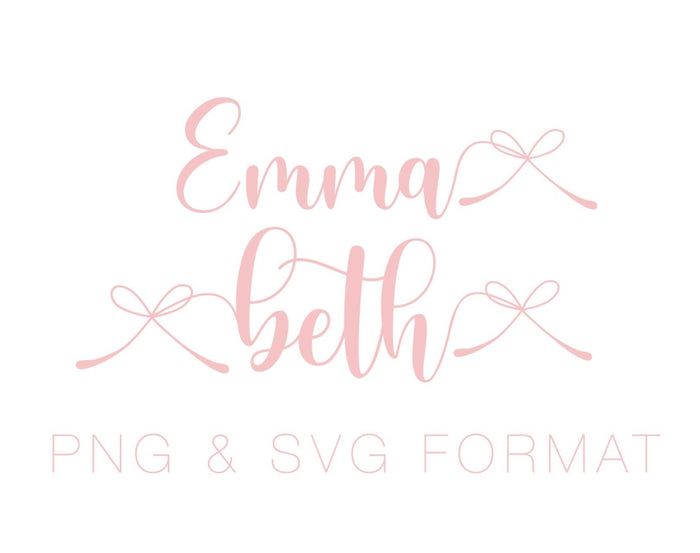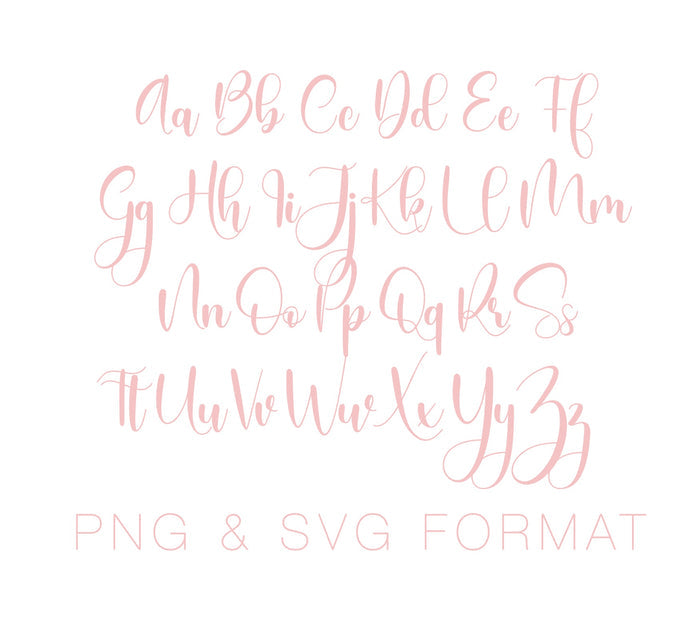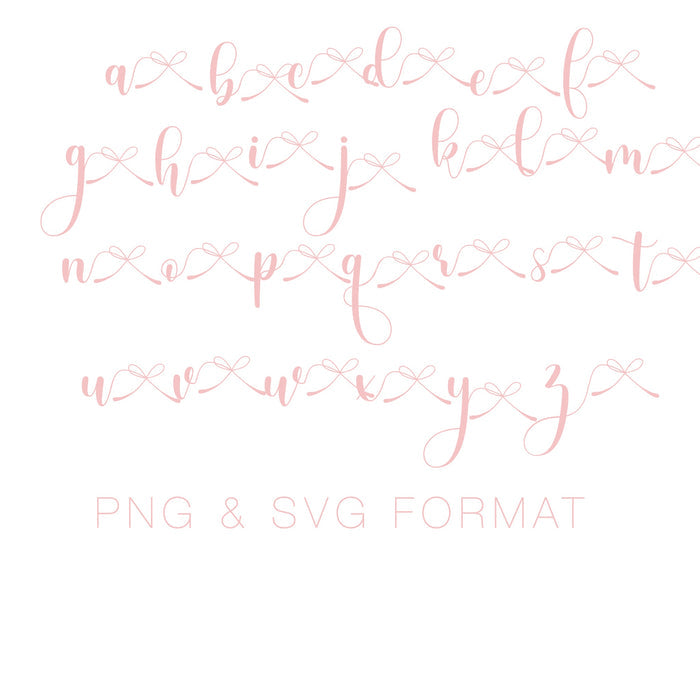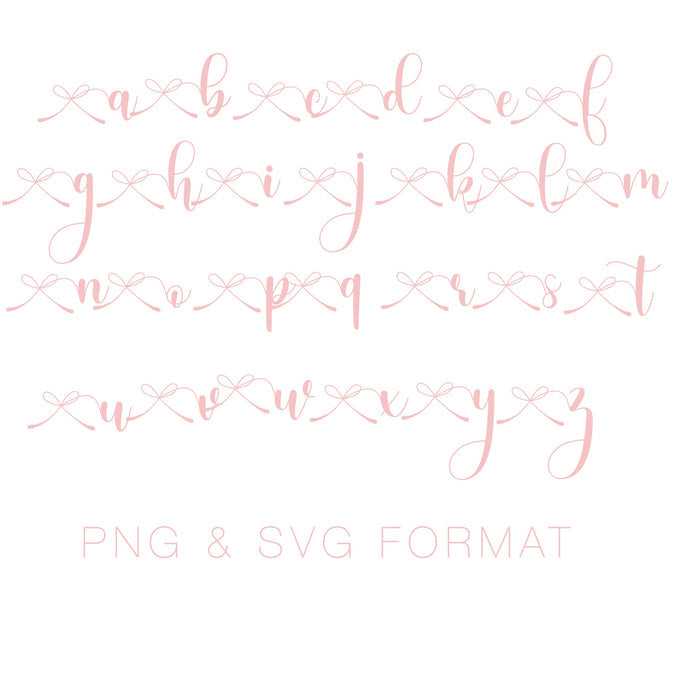
Emma Beth Monogram PDF PNG SVG & EPS Monogram Font
The Emma Beth PDF PNG SVG & EPS Font includes 52 letters A-Z Uppercase and lowercase letters 26 left bow letters and 26 right bow letters to create a monogram as shown in the first image.  There are 104 letters total in both PDF PNG SVG & EPS format.